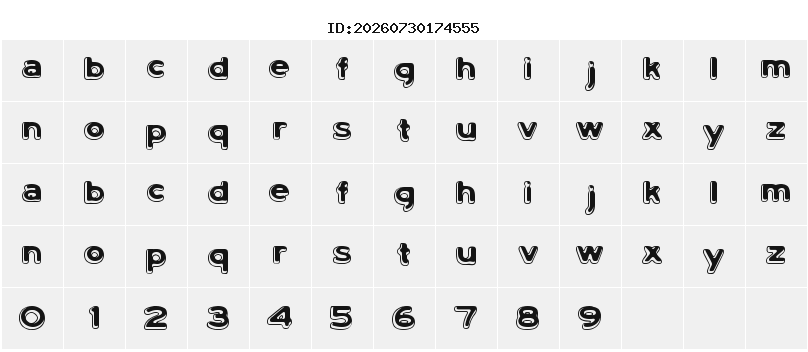
Lumi, nauroit.ttf
• Designer: junkohanhero
About Lumi, nauroit.ttf
Lumi, nauroit.ttf is a modern, elegant sans-serif font designed for ultimate readability and visual harmony. Perfect for branding, headlines, web design, and print materials.